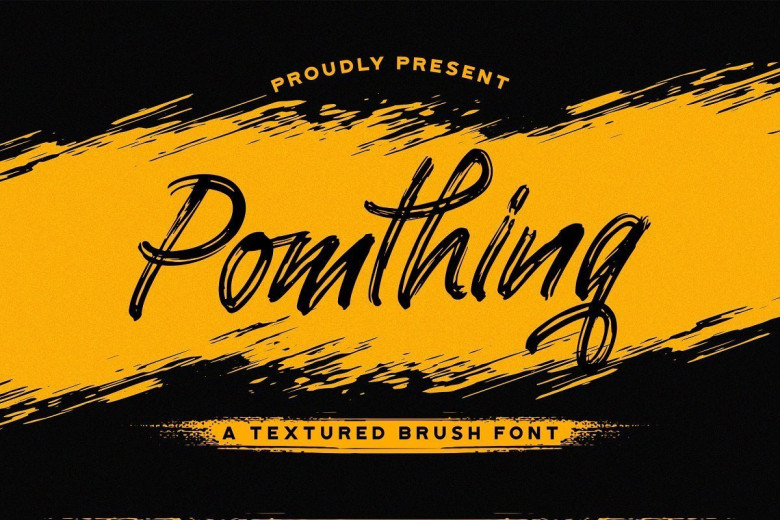
Pomthinq Brush Script Font
PomthinqBrush Script Font is a stylish font with a unique look that is achieved by a thoughtful blend of uppercase & lowercase letters. Combined with it’s texture & brush strokes, Pomthinq has an intriguing, easy-going flow that not only catches attention but maintains it.